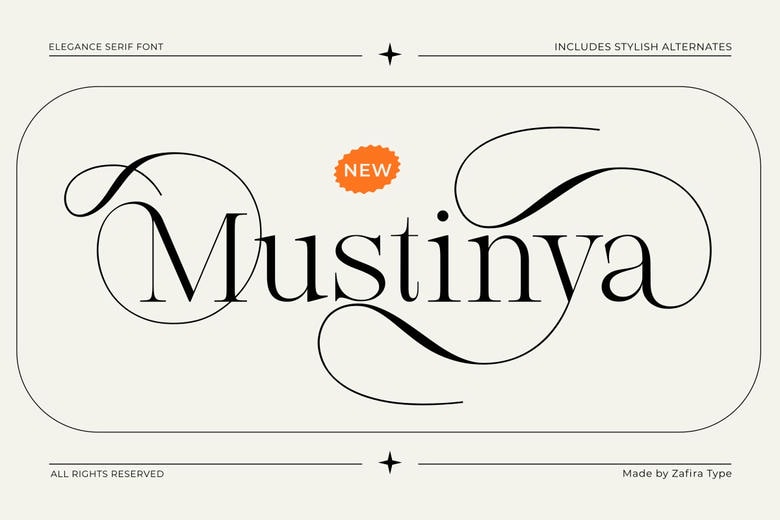
Mustinya is a classic serif font that adds elegance and subtle sophistication to your creative work. Its delicate curves and strong contrast combine traditional style with a fresh, modern look.
This font family includes two key styles: Regular and Italic. The Regular style feels balanced and structured, while the Italic style brings a smooth, expressive touch. Together, they work well for creative and well-organized designs.
Mustinya Serif Font